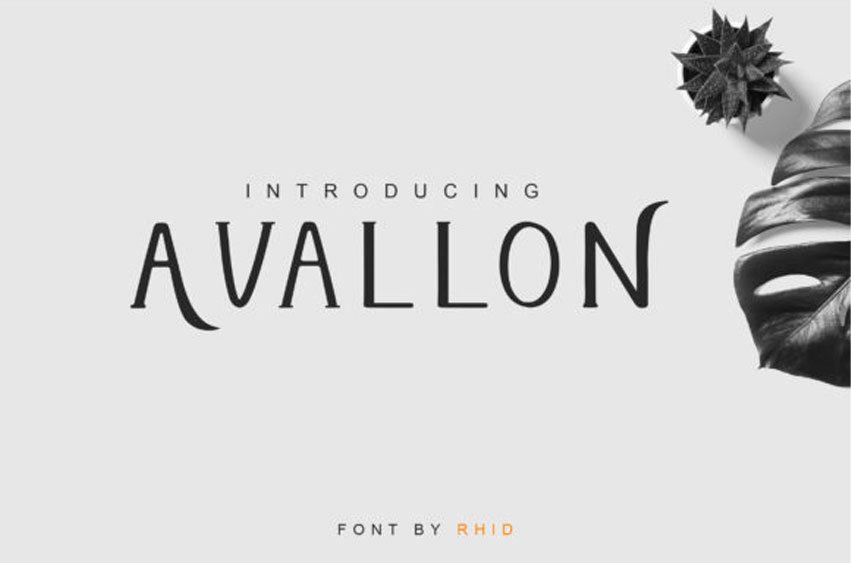
Avallon Font is a classy serif font.
It features elegant and stylish characters that make it the perfect font for logos, social media posts, cute greeting cards and much more!
Avallon Font is a classy serif font.
It features elegant and stylish characters that make it the perfect font for logos, social media posts, cute greeting cards and much more!